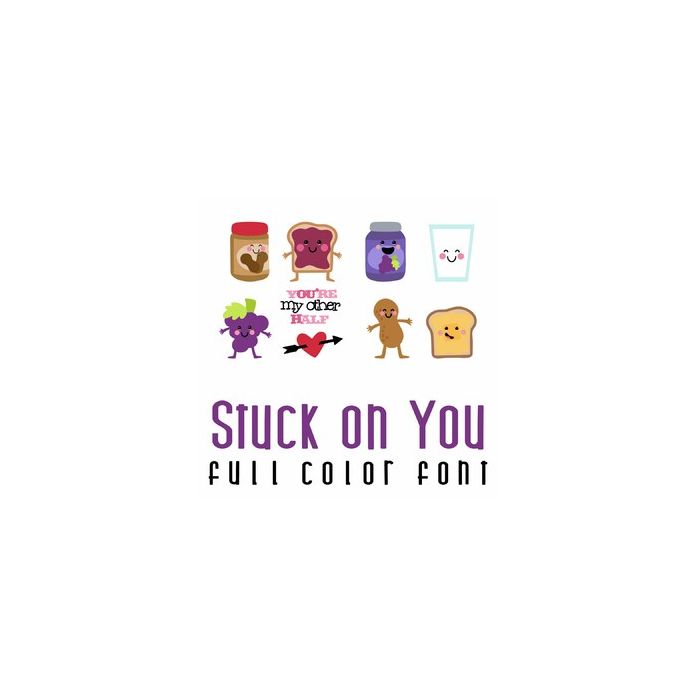
This adorable full-color doodlebat font features 26 cute Valentine couples and puns. Perfect for cards, crafts, gifts, decor, scrapbook pages, planner stickers, and more!